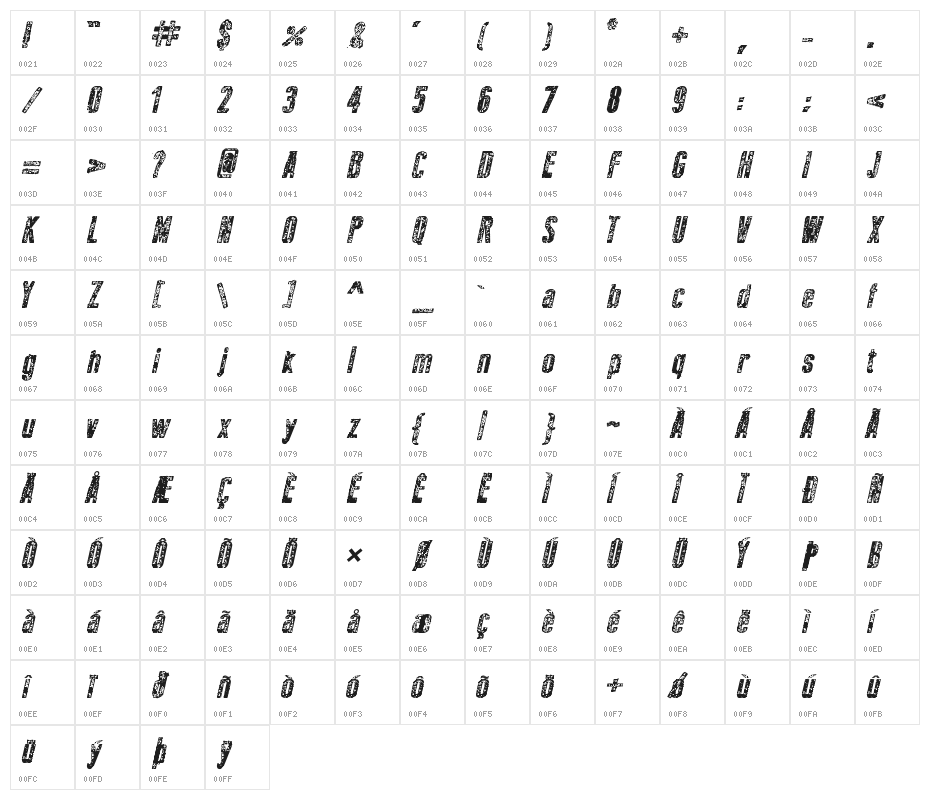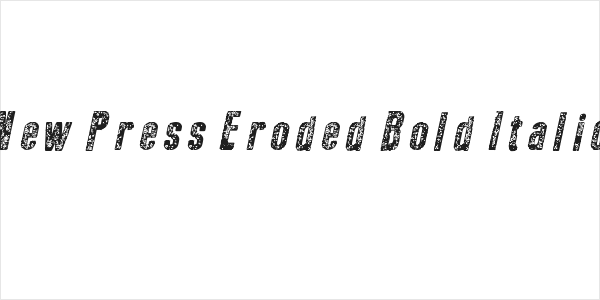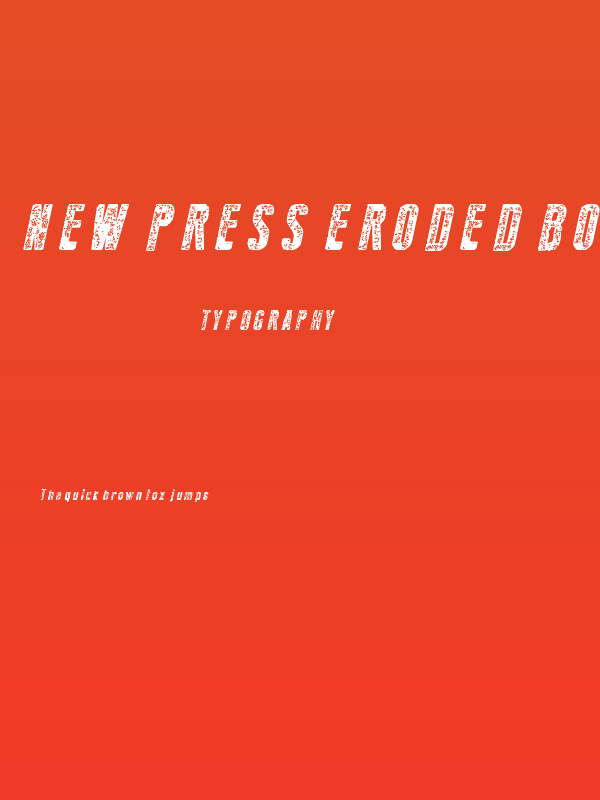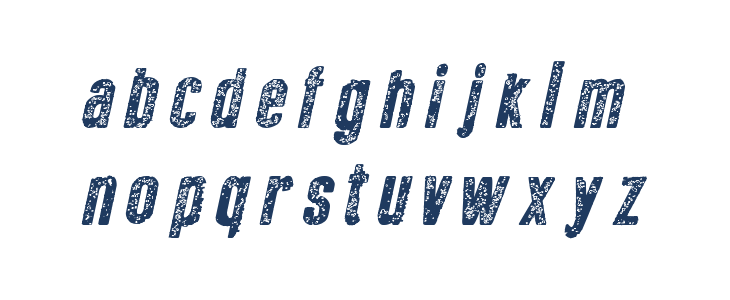
New Press Eroded Bold Italic Font
New Press Eroded Bold Italic Description
This font features a bold and italicized style with a distinctive eroded texture, giving it a rugged and distressed appearance. The uppercase and lowercase letters, along with numbers and special characters, exhibit a consistent weathered effect that suggests a vintage or industrial aesthetic. The characters are slightly slanted, enhancing the italicized look, while the bold weight ensures strong visibility and impact. The eroded texture varies across each character, adding a unique and dynamic quality to the text. This font is particularly suitable for projects that require a gritty, worn-out look, such as posters, album covers, or branding for edgy and alternative products.
| Overall Style | Vintage, Industrial, Distressed |
| Proposed Projects | Posters, album covers, branding for alternative products, vintage-themed designs. |